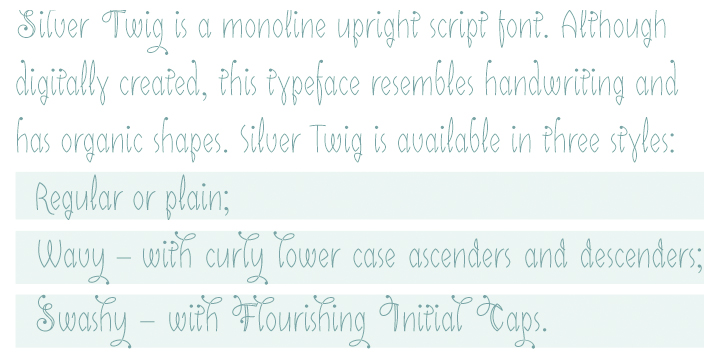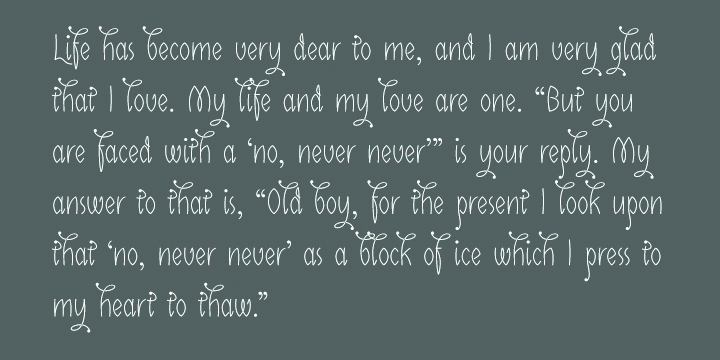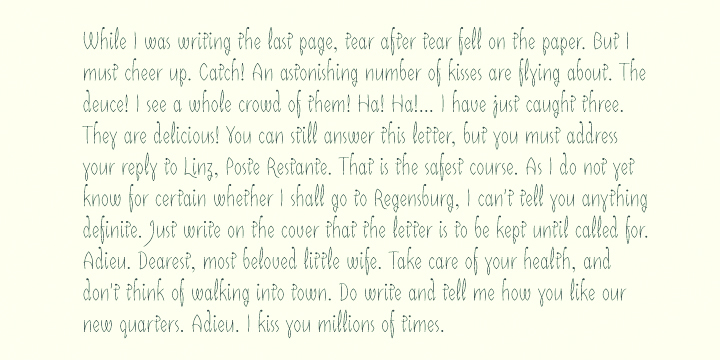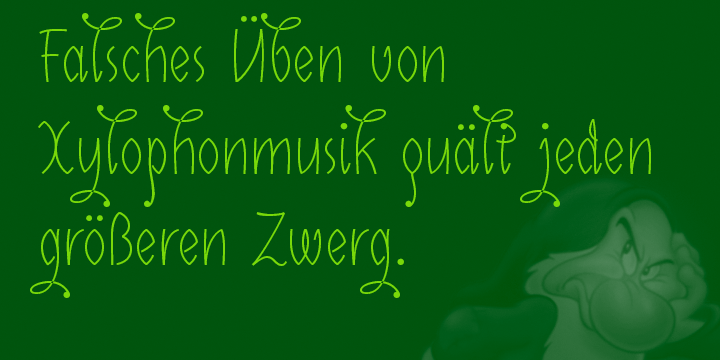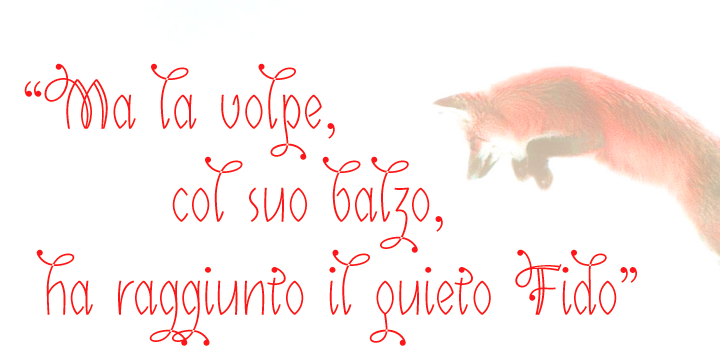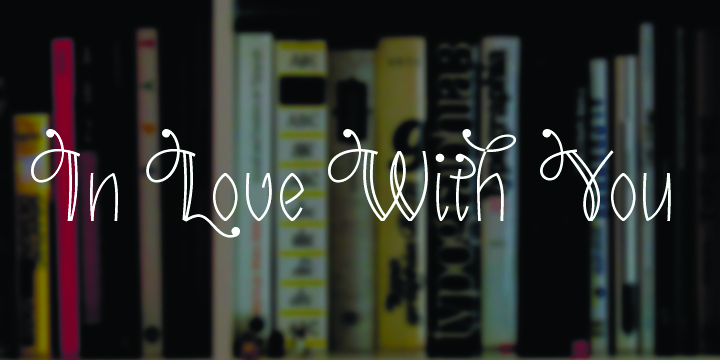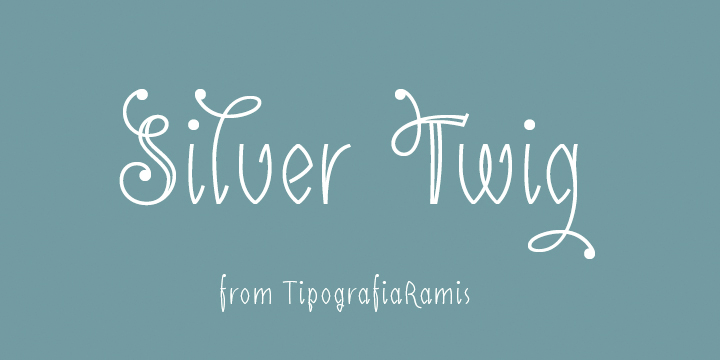
Silver Twig
Silver Twig Font Family
Silver Twig is a monoline upright script font. Although digitally created, this typeface resembles handwriting and has organic shapes. Silver Twig is available in three styles: Regular; Wavy – with curly lower case ascenders and descenders; and Swashy – with flourishing initial caps.